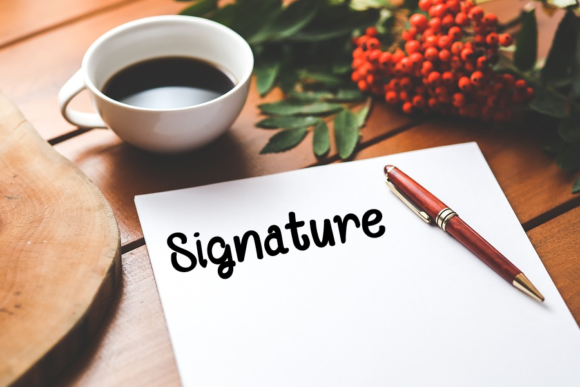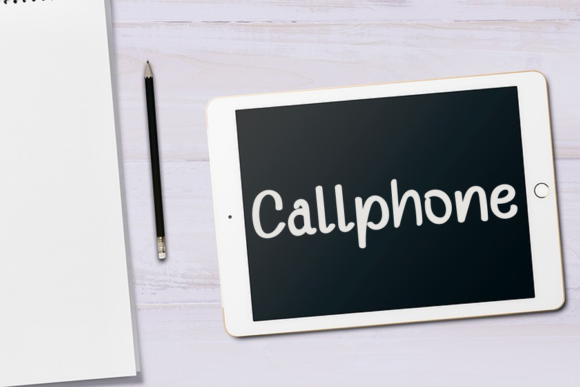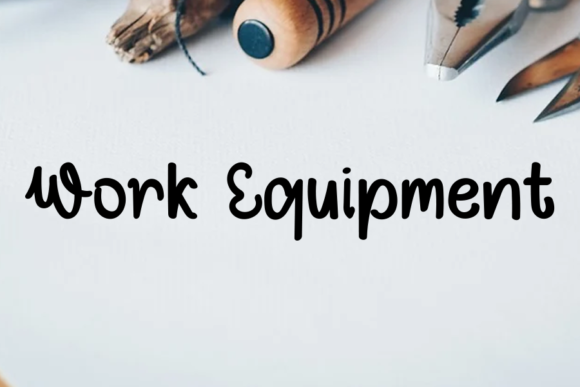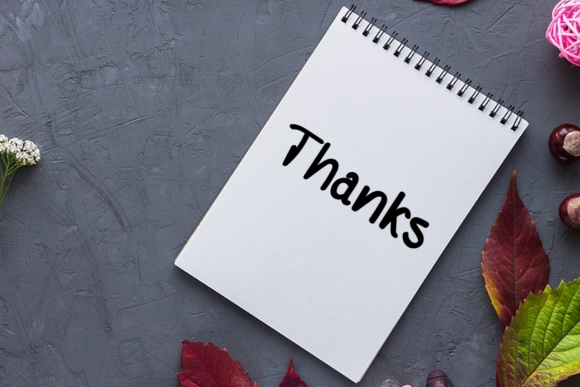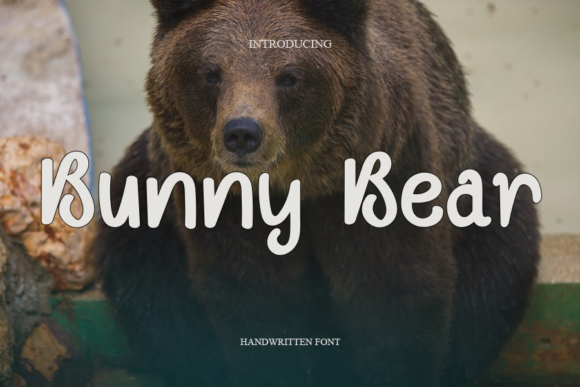
Bunny Bear Font: Add a Touch of Whimsy to Your Designs
Are you tired of using the same old fonts in your designs? Look no further than the Bunny Bear Font, a lovely script font that is sure to add a touch of whimsy to your creations. With its charming, playful characters that seem to dance along the baseline, this font is perfect for designers and crafters who want to make their ideas stand out.
What is Bunny Bear Font?
Bunny Bear Font is a script font that features elegant, cursive characters with a playful twist. The font is designed to look like handwriting, with each letter and number carefully crafted to resemble the fluid motion of a pen or pencil. The result is a font that is both elegant and fun, making it perfect for a wide range of design projects.
Key Features of Bunny Bear Font
- Charming, playful characters: The Bunny Bear Font features characters that seem to dance along the baseline, giving your designs a playful and whimsical feel.
- Elegant script style: The font has an elegant, cursive style that is perfect for creating beautiful headings, titles, and quotes.
- Handwritten look: The font is designed to look like handwriting, giving your designs a personal and unique touch.
- Easy to read: Despite its playful style, the Bunny Bear Font is easy to read, making it perfect for use in both digital and print designs.
Uses for Bunny Bear Font
The Bunny Bear Font is versatile and can be used in a wide range of design projects, including:
- Stationery and invitations: Add a touch of whimsy to your stationery and invitations with this playful font.
- Branding and packaging: Use the Bunny Bear Font to create unique and eye-catching branding and packaging for your products.
- Digital designs: The font is perfect for use in digital designs, such as social media graphics, blog posts, and website headers.
- Crafting and DIY projects: The Bunny Bear Font is also great for use in crafting and DIY projects, such as scrapbooking, card making, and journaling.
Tips for Using Bunny Bear Font
Here are a few tips for using the Bunny Bear Font in your designs:
- Use it as a headline font: The Bunny Bear Font is perfect for use as a headline font, where its playful style can really make your designs stand out.
- Pair it with a simple font: For body text, pair the Bunny Bear Font with a simple font to create a nice contrast and make your designs easy to read.
- Experiment with colors and textures: The Bunny Bear Font looks great in a variety of colors and textures, so don’t be afraid to experiment and find the perfect look for your designs.
The Bunny Bear Font is a lovely script font that is sure to add a touch of whimsy to your designs. With its charming, playful characters and elegant script style, it’s perfect for designers and crafters who want to make their ideas stand out. Whether you’re creating stationery, branding, digital designs, or crafting projects, the Bunny Bear Font is a great choice. So why not give it a try and see how it can add a touch of magic to your designs?